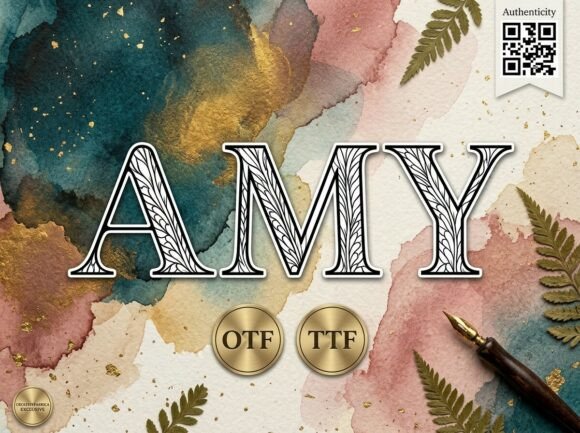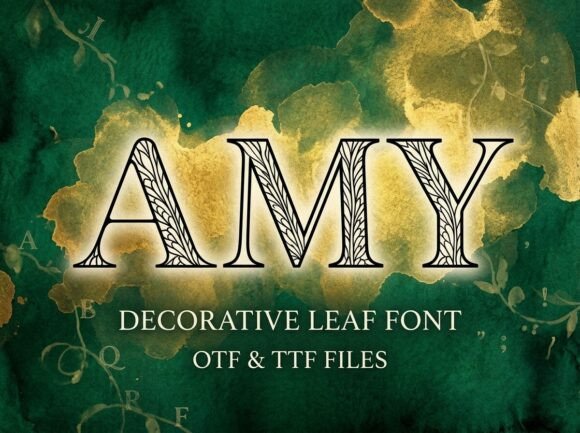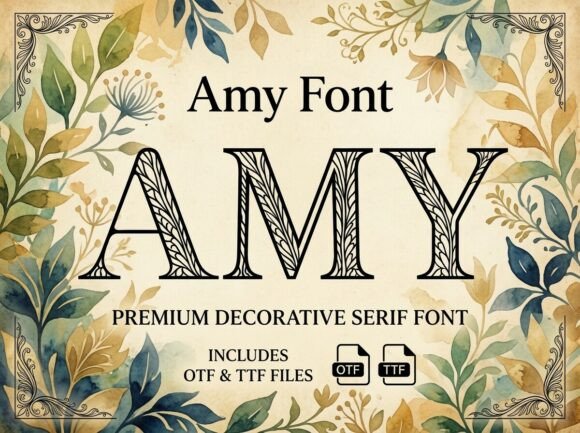
Introducing Amy Font: Elevate Your Designs with Timeless Elegance
In the world of typography, few fonts manage to capture the essence of natural elegance and sophistication. Amy, a premium decorative serif font, stands out as a masterpiece that embodies a “timeless-and-botanical” soul. This exquisite typeface is designed to immerse your designs in classic charm, making it the perfect choice for various creative projects.
The Unique Features of Amy Font
Amy’s design is characterized by classic, high-contrast serif letterforms that exude sophistication and refinement. What sets it apart, however, is the intricate detailing that adorns each character. The font features hand-drawn, feather-like leaf patterns and organic textures that fill the letterforms, giving the font a distinctive and eye-catching appearance.
The combination of high contrast and delicate illustrative details results in a sophisticated silhouette that adds a touch of elegance to any design. The rhythmic flow of the illustrative elements ensures that the font is not only beautiful but also highly legible, making it suitable for a wide range of applications.
Ideal Applications for Amy Font
Amy’s unique blend of classic sophistication and natural elegance makes it an ideal choice for several design applications:
• Independent Boutique Branding: For small businesses and boutiques looking to stand out, Amy offers a distinctive and memorable typographic solution that can help establish a brand’s identity.
• Artisanal Skincare Packaging: The font’s natural and elegant feel makes it perfect for artisanal skincare brands aiming to convey a sense of purity, naturalness, and luxury.
• Vintage-Inspired Book Covers: Authors and publishers looking for a font that can evoke a sense of nostalgia and classic literature will find Amy to be an excellent choice.
• High-Impact Social Media Headers: For those aiming to create a “cottagecore-aesthetic” on social media, Amy’s charming and picturesque feel is sure to make your headers stand out.
Why Choose Amy Font?
Choosing Amy for your design projects comes with several advantages:
• Versatility: Despite its specific aesthetic, Amy is surprisingly versatile and can be used across various design projects, from digital content to print materials.
• Elegance: The font’s inherent elegance ensures that your designs will have a sophisticated and high-end feel.
• Uniqueness: With Amy, you can ensure that your designs stand out from the crowd, thanks to its unique blend of classic serifs and botanical illustrations.
Tips for Using Amy Font Effectively
To get the most out of Amy, consider the following tips:
• Pair with Simpler Fonts: When using Amy for headings or titles, pair it with a simpler, sans-serif font for body text to create visual contrast and hierarchy.
• Experiment with Colors: Amy’s design works beautifully with a range of colors, especially earth tones, pastels, and rich jewel tones. Experiment with different color schemes to find the perfect match for your design.
• Consider the Context: While Amy is elegant and sophisticated, ensure that it aligns with the overall mood and message of your design project.
Amy font offers a unique opportunity for designers and crafters to elevate their work with a touch of timeless elegance and natural beauty. Its distinctive characteristics make it an excellent choice for a variety of projects, from boutique branding to book covers. By incorporating Amy into your design toolkit, you can create visually stunning and memorable pieces that stand out in a crowded digital landscape.
Whether you’re a professional designer looking to expand your typographic options or a crafter seeking the perfect font for your handmade products, Amy is sure to inspire and enhance your creative endeavors.